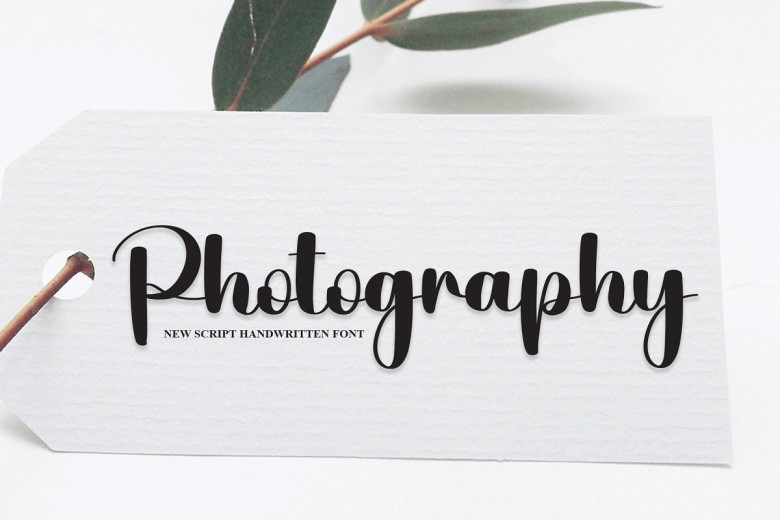
Photography Font
Photography font was designed to add an air of style and confidence to logotypes and headlines, adding nostalgia and distinction.
Photography Handwritten Script Font